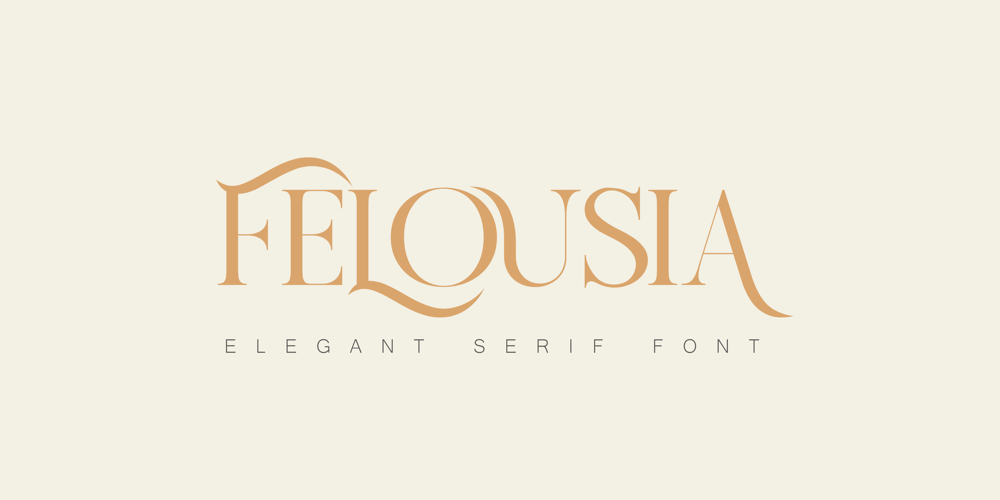
Felousia Font Family was designed by Yahya Qara and published by Yahya Type. Felousia contains 1 styles and family package options. Felousia – This font have more than 30 unique alternate and ligature that to give your logo, business card and another project to a unique vintage look.Felousia – this style works well for branding projects, logo, wedding designs, social media posts, advertisements, product packaging, product designs, label, photography, watermark, invitation, or whatever project you’re working on.WHAT’S INCLUDED? Uppercase & lowercase letters. numbers. punctuation Ligature & Huge Stylistic alternate. Multilingual support. Still got a question? Send me a message and I’ll be happy to answer!qura.yahya@gmail.com